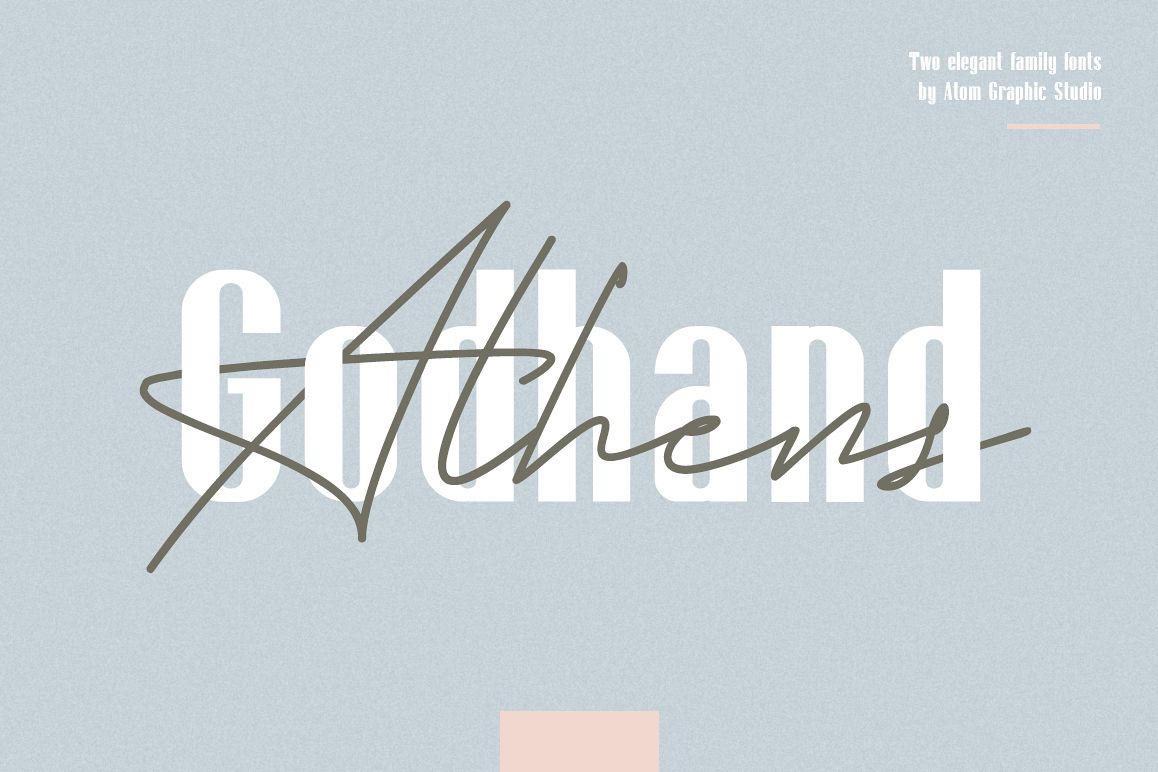
Godhand Athens | Elegant Font Duo
Godhand Athens
is a blend of two perfect fonts for your design needs. With signature style and sans serif, the design will be very elegant,
All styles can be combined perfectly which gives you the opportunity to create multiple unique designs in an instant.
It’s perfect for high quality logos, posters, wedding invitations, blog posts, social media, and more!